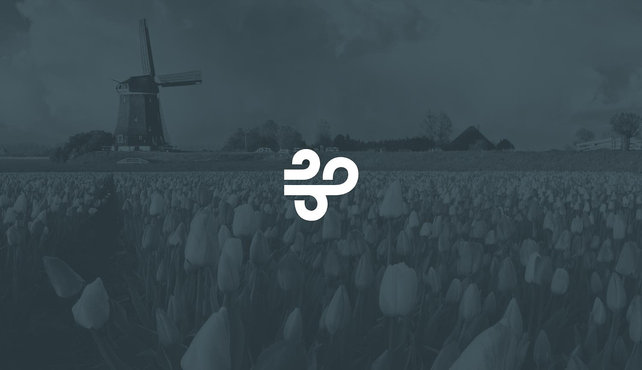
Ingenious Font Summons Icons With A Few Keystrokes
Nobody likes hunting through clipart libraries for stock graphics. So Symbolset makes the experience as simple as typing.
The littlest graphics can be the biggest pain to implement on the web. You need to either hire an illustrator or dig through clipart. Then you need to sync up with your designer (who may be different than a freelance illustrator), who, in turn, may need to toss the product to a developer to implement. It would be a lot easier if implementing such graphics were as simple as typing a word.
That’s the whole idea behind Symbolset, a collection of typefaces that you generate simply by typing a word. Once you license their fonts, those pesky little images we always need for projects, from sunshine to mailboxes to social-networking buttons, can magically appear when you type keywords like “sunshine,” “mailbox,” or “twitter.”
“There’s a magical moment when typing a keyword becomes an image,” Symbolset’s Mike Fortress tells Co.Design. “Finding icons in a traditional icon font is a chore. Designers eyeball the glyphs panel, a panel not included in Photoshop, and hunt. Our keywords are human-friendly.”
Symbolset is partially inspired by FF Chartwell, which won an Innovation By Design Award last year. FF Chartwell creates graphs by typing. Symbolset creates stock images by typing. But it’s not just this core UI that makes Symbolset so appealing. As every image has text as its core, these images can actually mean something to search engines and screen readers. There’s no need for metadata annotation because that’s built right into the font itself.
Yet another advantage is that you can tweak Symbolsets with CSS. So rather than bringing the Adobe Suite into the mix, image scaling, unique buttons, and clever layouts can actually be coded right in your site.